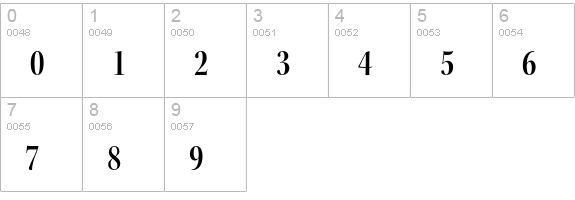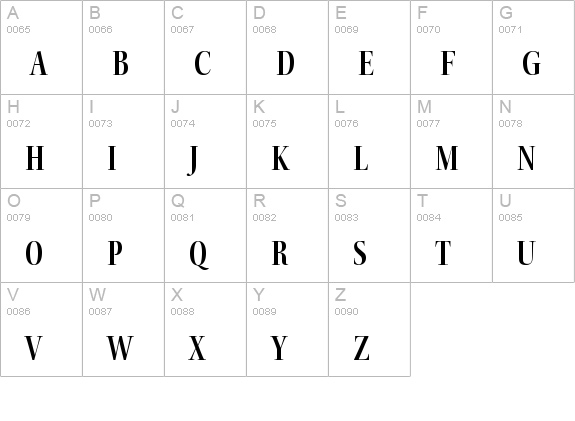
Kepler Std Semibold Condensed Display Font Details
Kepler Std Semibold Condensed Display is a sub-bold, structured, condensed-width variant in the Kepler typeface family \xE2\x80\x94 well suited to sub-headlines and emphasised passages.
The Kepler Std Semibold Condensed Display font is a stunning typeface that effortlessly combines elegance with modernity. With its bold and condensed design, this font makes a powerful statement in any design project. It is perfect for headlines, titles, banners, and other display purposes. Featuring strong letterforms and a touch of sophistication, the Kepler Std Semibold Condensed Display font exudes confidence and professionalism. Its condensed nature allows for maximum impact, ensuring that your message is delivered with clarity and precision. But what makes this font truly exceptional is the fact that it is freely available to download at FontsMarket.com. Yes, you read that right - this high-quality typeface can be yours without any cost. FontsMarket.com is a trusted source for premium fonts, and they generously offer the Kepler Std Semibold Condensed Display font as a free download. Whether you're a designer, a business owner, or simply someone who appreciates beautiful typography, the Kepler Std Semibold Condensed Display font is a must-have in your collection. Its versatility and timeless appeal make it suitable for a wide range of projects, from branding and advertising to editorial layouts and more. So why wait? Take advantage of this amazing opportunity and enhance your designs with the Kepler Std Semibold Condensed Display font. Download it for free at FontsMarket.com and unlock a world of possibilities for your creative endeavors.